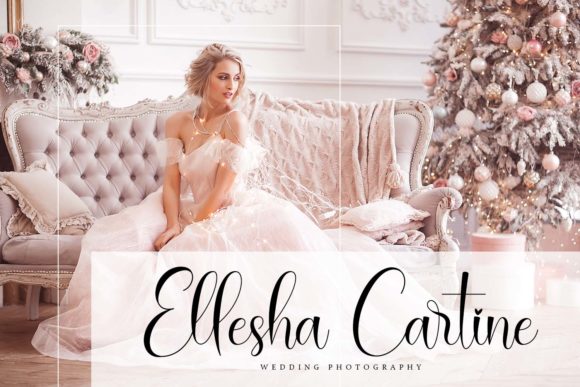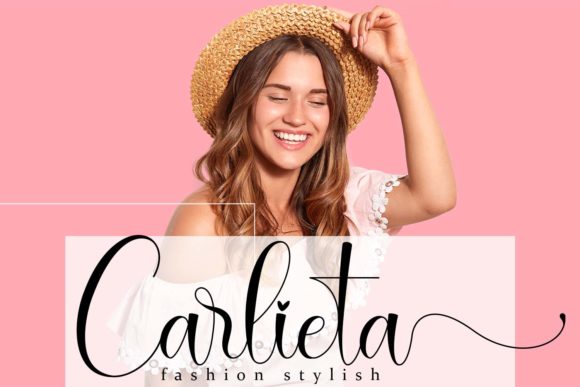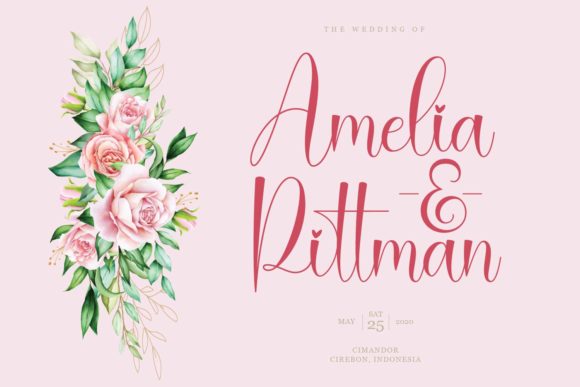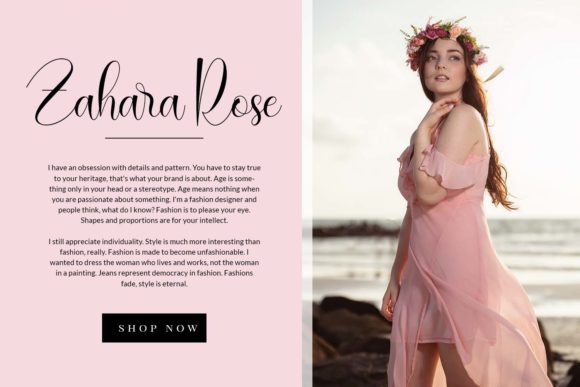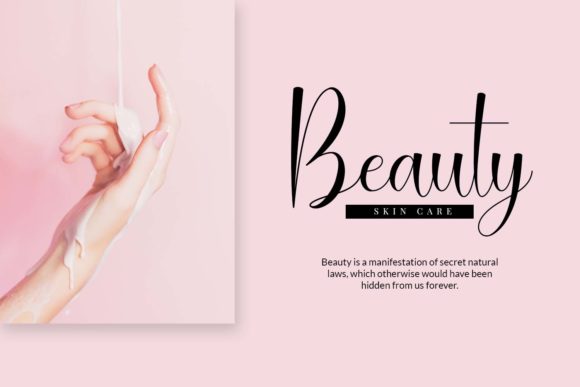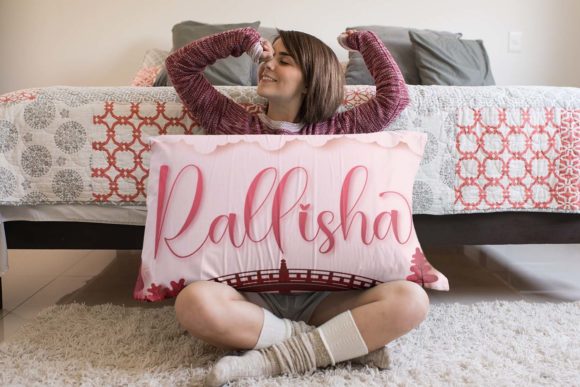
Introduction to Rallisha Font
Rallisha feels equally charming and elegant.
It is PUA encoded which means you can access all of the glyphs and swashes with ease It features a varying baseline, smooth lines, gorgeous glyphs and stunning alternates.
Key Features of Rallisha Font